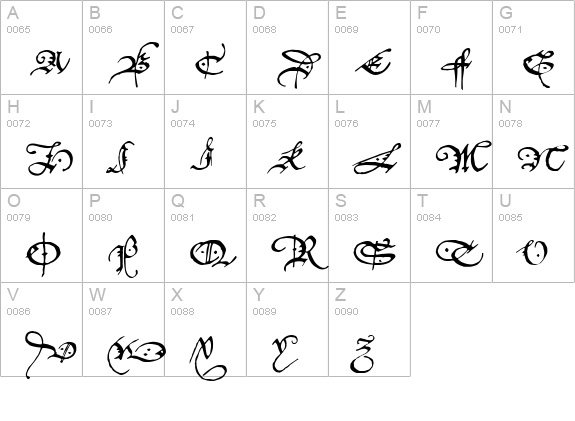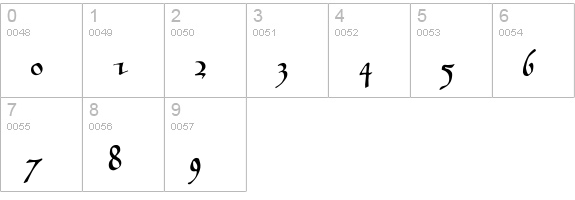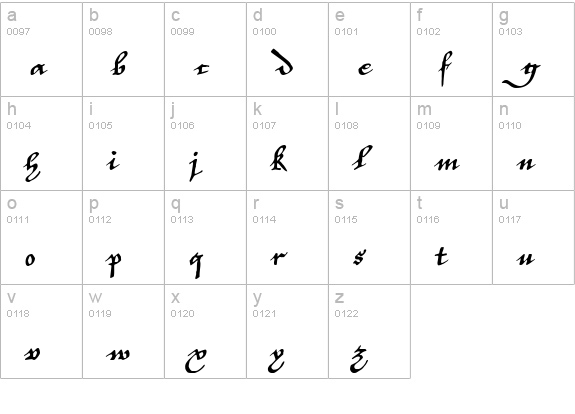
P22Elizabethan Font Details
P22Elizabethan font is a stunning representation of the elegant handwriting style that was prevalent during the Elizabethan era. With its intricate and ornate details, this font captures the essence of the period, transporting you back to the grandeur and sophistication of the Renaissance. The P22Elizabethan font is a true tribute to the artistry and craftsmanship of the Elizabethan scribes. Its intricate calligraphic forms and delicate flourishes evoke a sense of royalty and refinement, making it the perfect choice for projects that require a touch of sophistication and historical authenticity. But what truly sets P22Elizabethan font apart is not just its beautiful design, but also its availability for free download at FontsMarket.com. Yes, you heard it right! This extraordinary font can be freely accessed and used for your personal or commercial projects, making it an invaluable resource for designers, writers, and anyone seeking to add a touch of timeless elegance to their work. Whether you're creating invitations for a regal wedding, designing a book cover for a historical novel, or simply adding a touch of class to your personal correspondence, P22Elizabethan font is sure to exceed your expectations. Its versatility and timeless appeal make it a must-have for any designer's toolkit. So why wait? Head over to FontsMarket.com today and download the P22Elizabethan font for free. Experience the beauty and grandeur of the Elizabethan era, and let your creativity soar with this exquisite typeface.